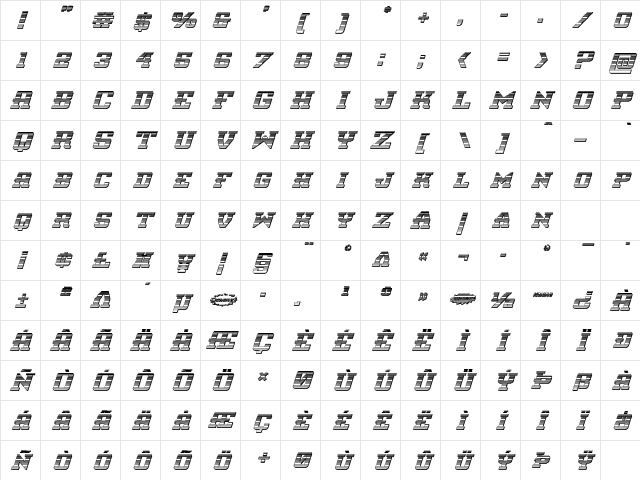
Interceptor Chrome is a composed and adaptable typeface that performs quietly and consistently across a wide range of design contexts. The slanted form adds forward momentum and visual energy.
Pro Tip: Use Interceptor Chrome for emphasis, pull quotes, and subheadings where its slanted energy can add rhythm to the layout.